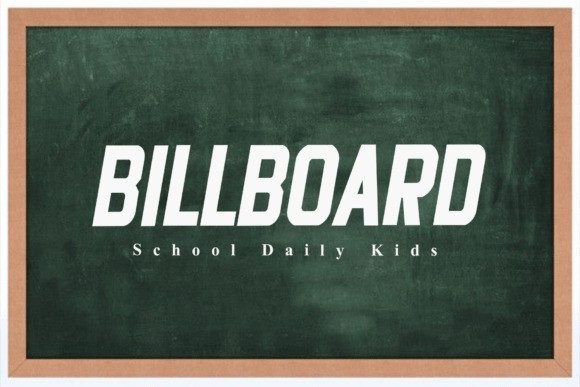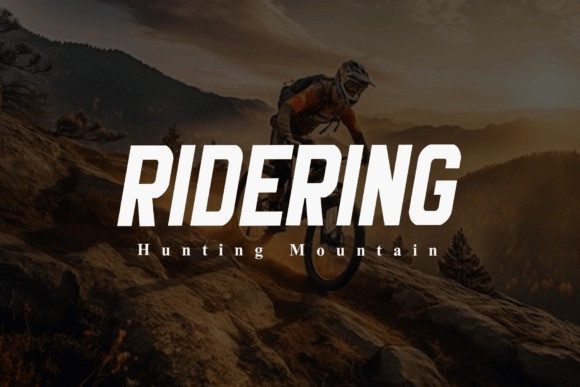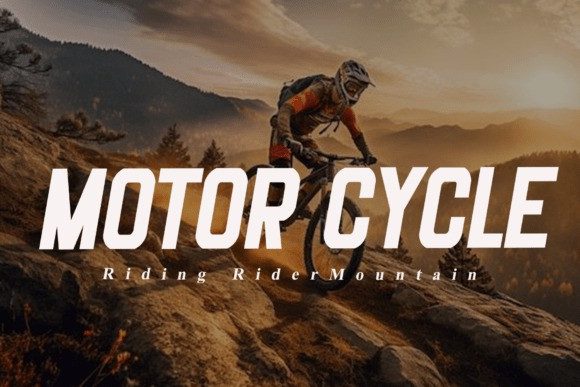
Motor Cycle Font
Motor Cycle Font is a bold and assertive sans serif font. No matter the topic, this font will be an incredible asset to your fonts library, as it has the potential to elevate any creation.